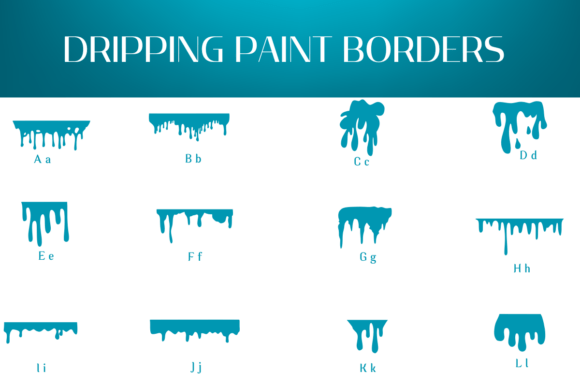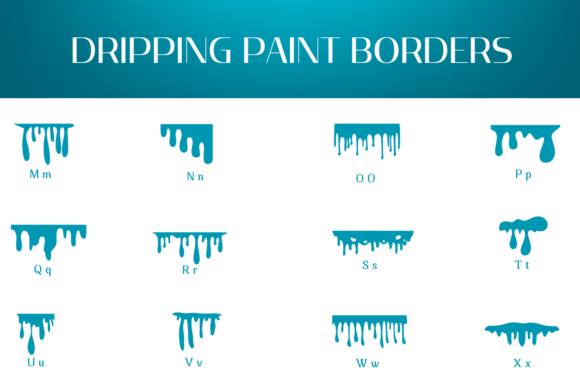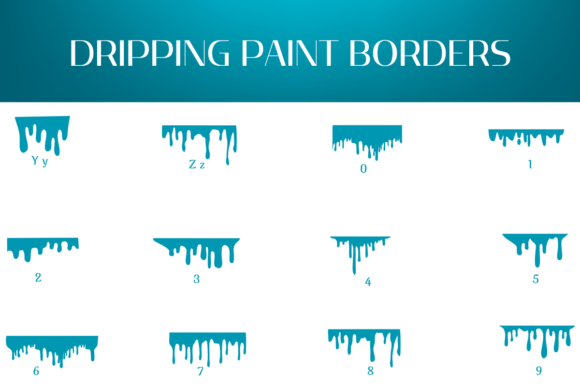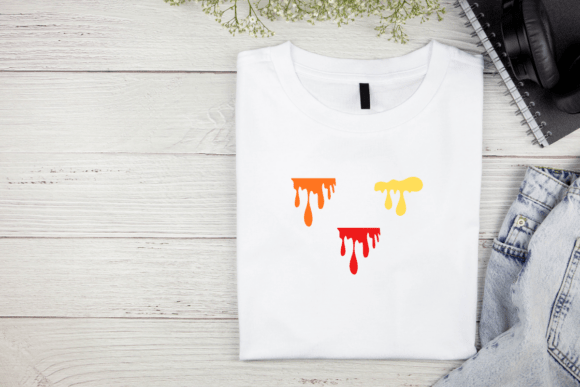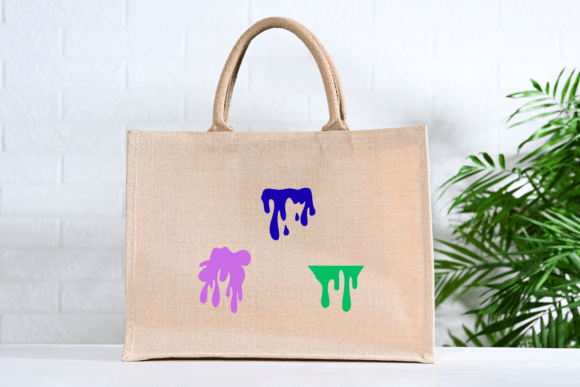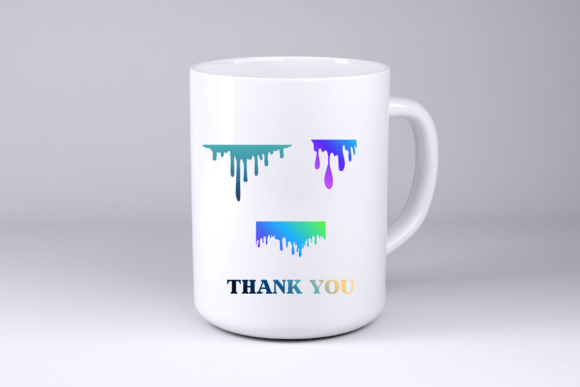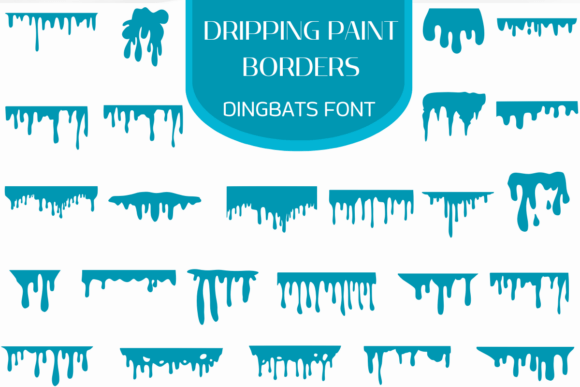
Dripping Paint Borders Font: Add a Creative Touch to Your Designs
Are you looking for a unique and creative way to add a personal touch to your designs? Look no further than the Dripping Paint Borders Font! This dingbats font is perfect for crafters, designers, and anyone looking to add a splash of color and creativity to their projects. In this article, we’ll explore the world of Dripping Paint Borders and show you how to use it to take your designs to the next level.
What is Dripping Paint Borders Font?
Dripping Paint Borders is a dingbats font that features colorful, dripping paint borders and decorations. The font is made up of various designs, including borders, frames, and shapes, all with a dripping paint effect. This font is perfect for adding a creative and playful touch to your designs, and can be used for a wide range of projects.
Uses for Dripping Paint Borders Font
Dripping Paint Borders is a versatile font that can be used for a variety of projects, including:
• Journaling and scrapbooking: Add a pop of color and creativity to your journal or scrapbook pages with Dripping Paint Borders.
• Greeting cards: Create unique and personalized greeting cards for any occasion.
• Banners and signs: Add a creative touch to your banners and signs with Dripping Paint Borders.
• Mugs and ceramics: Use Dripping Paint Borders to add a personal touch to your mugs, ceramics, and other home decor items.
• Social media posts: Add a splash of color and creativity to your social media posts with Dripping Paint Borders.
• Stationery and paper crafts: Use Dripping Paint Borders to create unique and personalized stationery, cards, and paper crafts.
Tips for Using Dripping Paint Borders Font
Here are a few tips for using Dripping Paint Borders:
• Experiment with colors: Dripping Paint Borders comes in a variety of colors, so don’t be afraid to experiment and find the perfect combination for your design.
• Mix and match: Mix and match different designs and borders to create a unique and personalized look.
• Use it sparingly: Use Dripping Paint Borders sparingly to add a pop of color and creativity to your design, or use it throughout for a bold and playful look.
Benefits of Using Dripping Paint Borders Font
There are many benefits to using Dripping Paint Borders, including:
• Unique and creative: Dripping Paint Borders adds a unique and creative touch to your designs, setting them apart from the rest.
• Easy to use: Dripping Paint Borders is easy to use and can be incorporated into your designs in just a few clicks.
• Versatile: Dripping Paint Borders can be used for a wide range of projects, from journaling and scrapbooking to banners and signs.
Dripping Paint Borders is a fun and creative font that can add a splash of color and personality to your designs. Whether you’re a crafter, designer, or just looking for a unique way to express yourself, Dripping Paint Borders is the perfect choice. With its versatility, ease of use, and unique designs, Dripping Paint Borders is sure to become a favorite in your design arsenal.